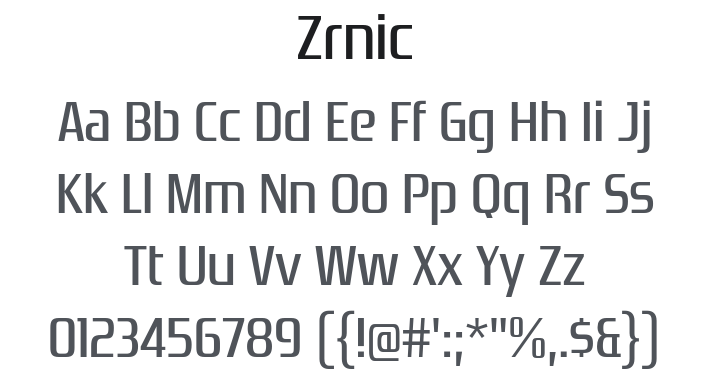
Zrnic Font
About Zrnic
Zrnic combines modular geometry and engineered precision to create a distinctly modern voice. Its squared shapes and deliberate gaps evoke circuitry and industrial design, balancing structure with clarity. Six weights with italics provide flexibility across interfaces, motion graphics, and architectural or tech branding. Clean, confident, and adaptable, Zrnic projects innovation without nostalgia.